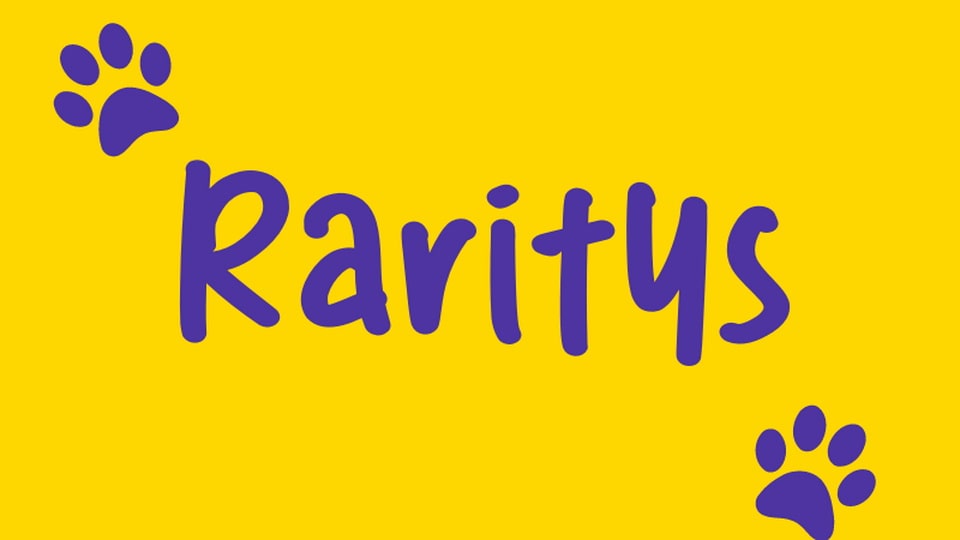
Raritys is a simple, playful hand-drawn comic font that adds a cheerful, lighthearted touch to any project. Each letter is crafted with a relaxed, casual style, giving it an approachable, friendly feel that’s perfect for comics, children’s books, or anything fun and informal. The rounded shapes and slightly wobbly lines bring a touch of whimsy without sacrificing clarity, making it easy to read while keeping the mood light and engaging. Raritys font is ideal for adding a splash of personality and fun to your words.
Great for posters, playful branding, and social media, Raritys font is all about spreading joy with a warm, friendly vibe.